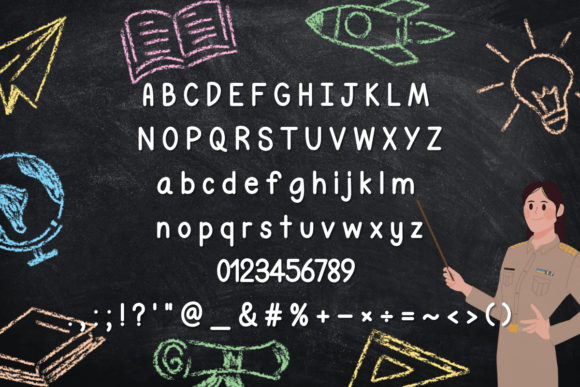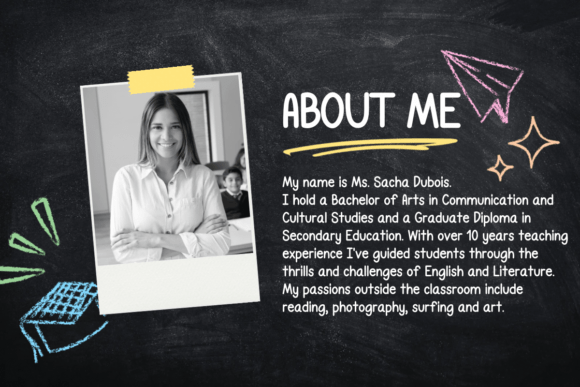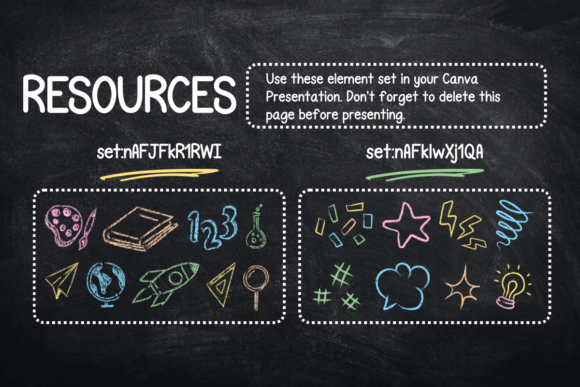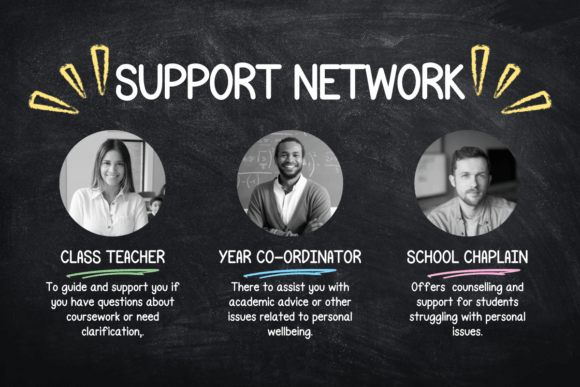
Introducing Happy Teacher Day Font: A Handwritten Delight for Creative Minds
Are you a designer, crafter, or simply a creative individual looking for a unique and playful font to add a personal touch to your projects? Look no further than the Happy Teacher Day Font, a charming handwritten font that’s perfect for a variety of applications. In this article, we’ll dive into the world of Happy Teacher Day Font, exploring its features, uses, and benefits for designers and crafters alike.
What is Happy Teacher Day Font?
Happy Teacher Day Font is a beautiful, handwritten font that’s been carefully crafted to bring a touch of warmth and personality to your designs. With its flowing lines and whimsical feel, this font is ideal for creating a range of materials, from notes and diaries to greeting cards and social media posts.
Features of Happy Teacher Day Font
- Handwritten style: Happy Teacher Day Font boasts a genuine, handwritten look that’s perfect for adding a personal touch to your designs.
- Versatile: This font is suitable for a wide range of applications, including notes, diaries, greeting cards, banners, content, mugs, cards, shirts, stationery, and social media posts.
- Easy to read: Despite its playful nature, Happy Teacher Day Font remains clear and easy to read, making it perfect for both digital and print materials.
Uses for Happy Teacher Day Font
So, what can you create with Happy Teacher Day Font? The possibilities are endless! Here are a few ideas to get you started:
- Notes and journals: Add a personal touch to your notes and journals with Happy Teacher Day Font. Perfect for students, teachers, and anyone who loves to write.
- Greeting cards: Create beautiful, one-of-a-kind greeting cards for special occasions like birthdays, holidays, and Teacher Appreciation Day.
- Banners and signs: Use Happy Teacher Day Font to create eye-catching banners and signs for events, parties, or everyday decor.
- Social media posts: Add a touch of personality to your social media posts with Happy Teacher Day Font. Perfect for creating engaging content that stands out from the crowd.
- Merchandise: Design unique merchandise like mugs, shirts, and tote bags with Happy Teacher Day Font. Great for teachers, students, and anyone who loves a personalized gift.
So, why should designers and crafters choose Happy Teacher Day Font for their projects? Here are just a few benefits:
- Unique and creative: Happy Teacher Day Font offers a fresh and creative alternative to traditional fonts, helping your designs stand out from the crowd.
- Time-saving: With Happy Teacher Day Font, you can create beautiful, professional-looking designs in no time. Perfect for busy designers and crafters.
- Customizable: Feel free to experiment with Happy Teacher Day Font, adjusting the size, color, and style to suit your design needs.
In conclusion, Happy Teacher Day Font is a delightful handwritten font that’s perfect for designers, crafters, and anyone looking to add a personal touch to their projects. With its versatility, ease of use, and unique style, this font is sure to become a favorite in your creative toolkit. So why wait? Download Happy Teacher Day Font today and start creating beautiful, one-of-a-kind designs that bring joy and personality to your audience.